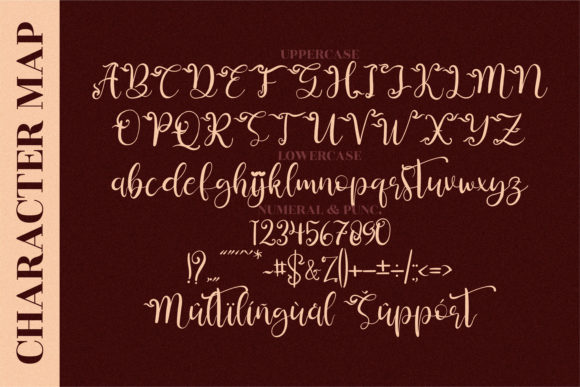
About Aullia Beauty Font
Aullia Beauty is a stunning script font that exudes class, elegance, and modernity. Its beautiful and refined design makes it the perfect choice for a wide range of projects, including logos, branding, invitations, stationery, wedding designs, social media posts, and more.
With its classy and elegant appearance, Aullia Beauty adds a touch of sophistication to any design. Whether you’re creating a logo for a high-end brand, designing wedding invitations for a luxurious event, or crafting stationery for a stylish business, this font will elevate your work to new levels of beauty and professionalism.
One of the key features of Aullia Beauty is its PUA encoding, which means you have easy access to all of the glyphs and swashes. This allows you to create unique and customized designs by exploring the various stylistic alternates and decorative elements available in the font.
The versatility of Aullia Beauty is evident in its ability to adapt to different design styles and themes. Whether you’re going for a romantic and whimsical look or a sleek and modern aesthetic, this font can effortlessly complement your vision and enhance the overall visual appeal of your projects.
In addition to its aesthetic qualities, Aullia Beauty is also highly legible, ensuring that your message is conveyed effectively to your audience. The carefully crafted letterforms and balanced spacing make it easy to read, even at smaller sizes or in intricate designs.
Overall, Aullia Beauty is a versatile and visually appealing script font that brings a touch of elegance and modernity to your designs. Its PUA encoding further enhances its versatility by allowing you to access a wide range of glyphs and swashes. Whether you’re working on branding, invitations, or social media graphics, Aullia Beauty is sure to make a lasting impression with its classy and refined style.